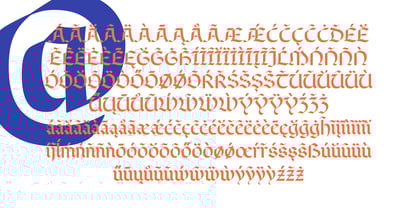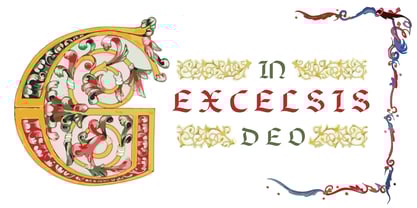
New Rotunda
by William Studio
This is a style of handwriting from the 10th to 13th centuries, and unlike the traditional Rotunda style, this font omits the original double trunk design, and the overall design is closer to the modern style of the Latin alphabet, more concise and easy to read.At the same time, the combination of any two curved fonts is made, and the lowercase letters d and r retain two forms, which can be replaced by themselves in opentype.
Designers: William Lu
Foundry: William Studio